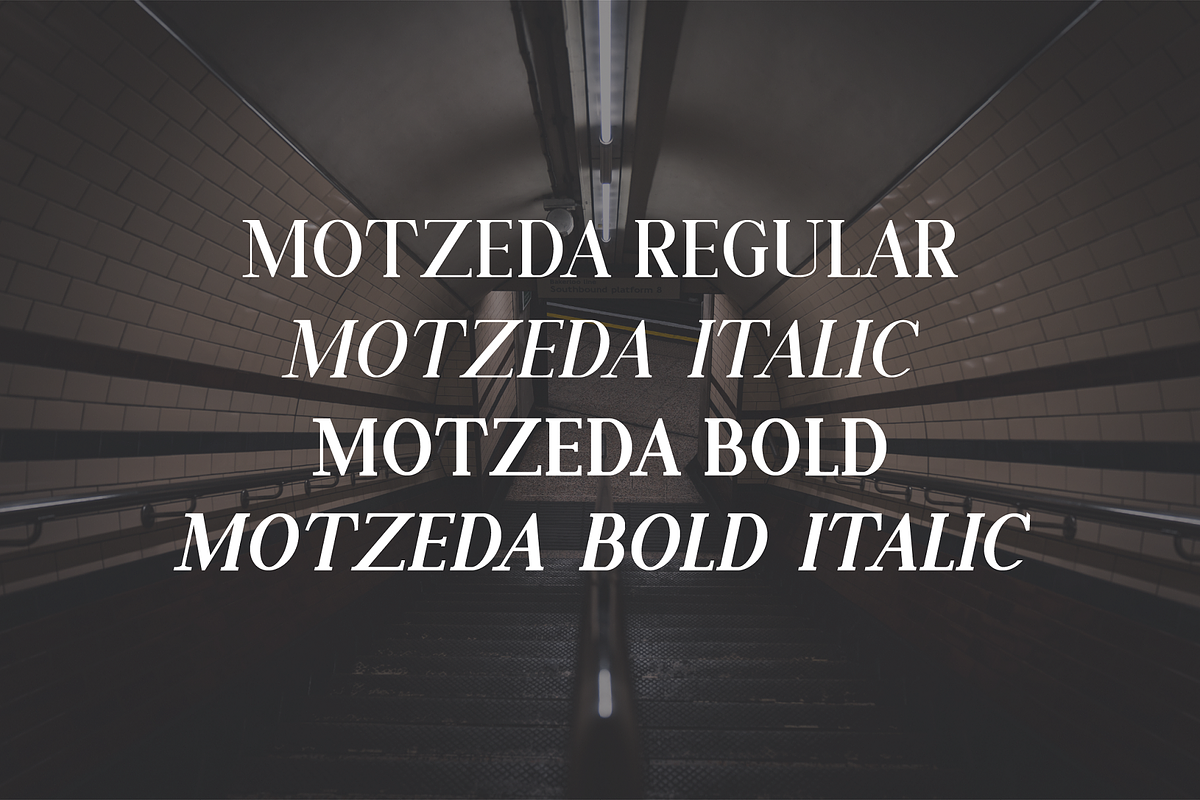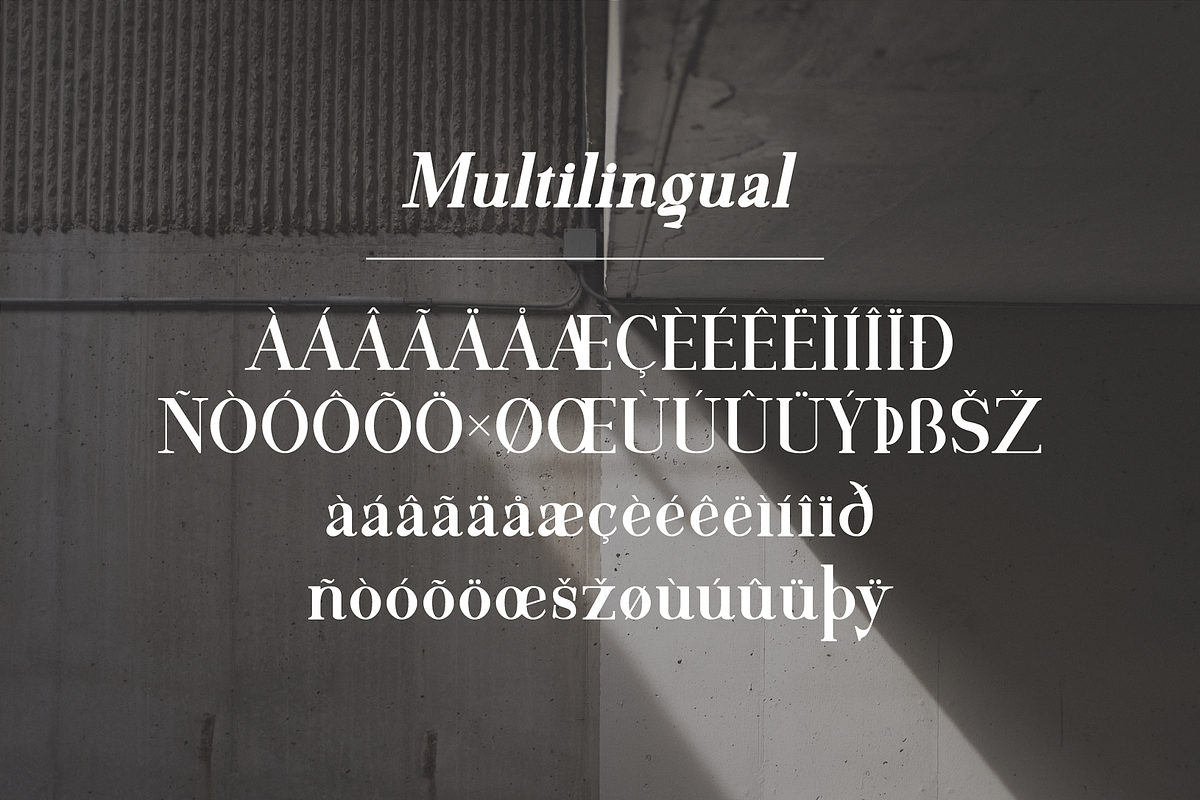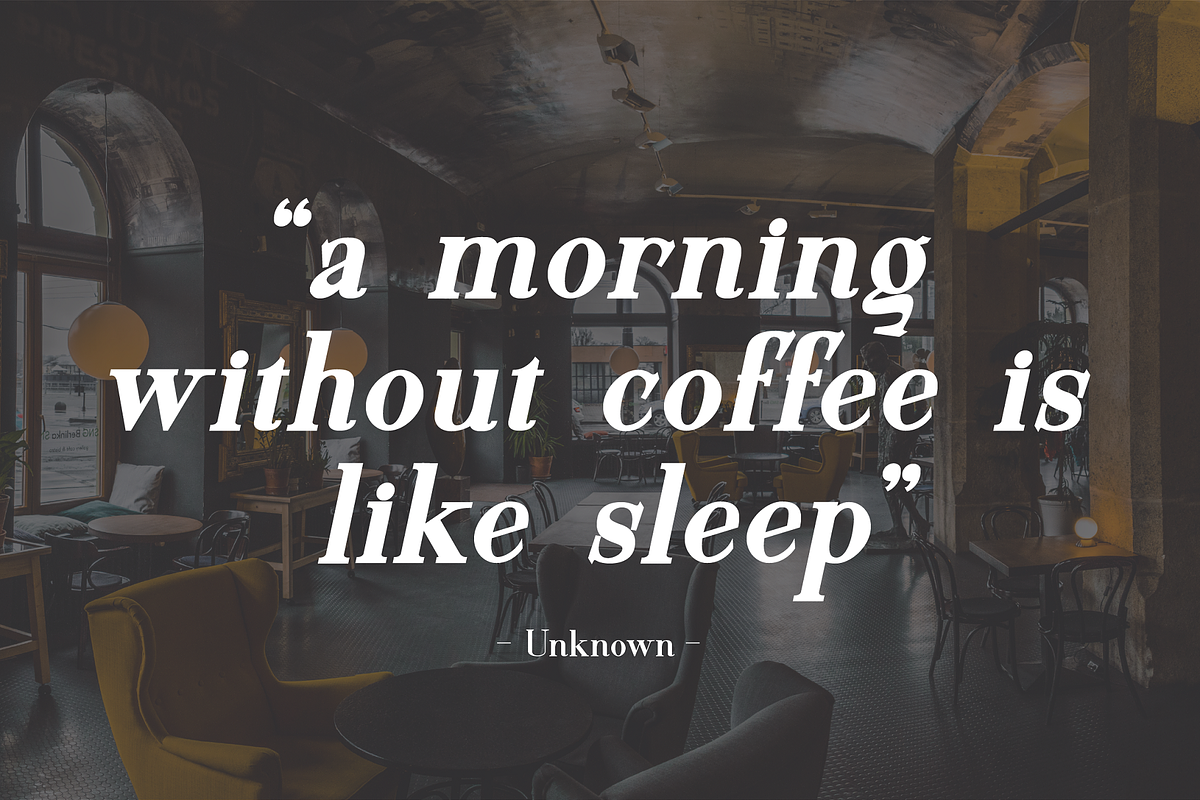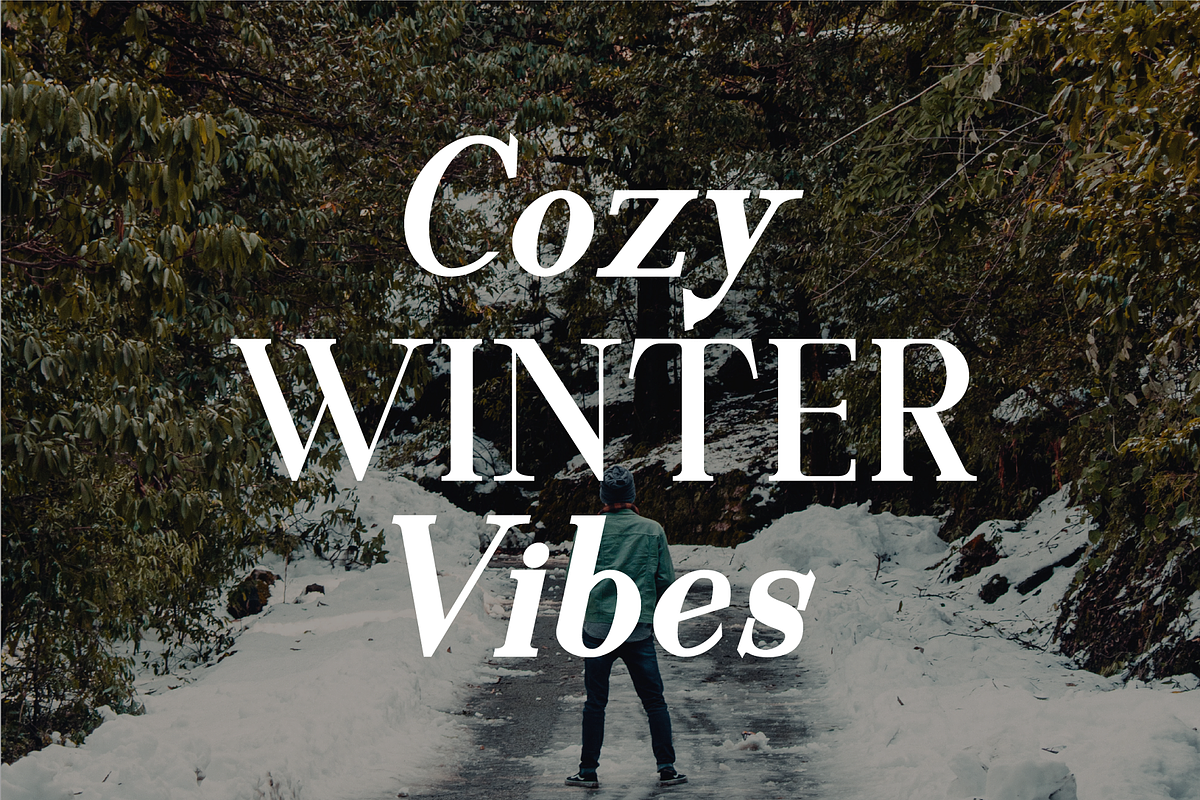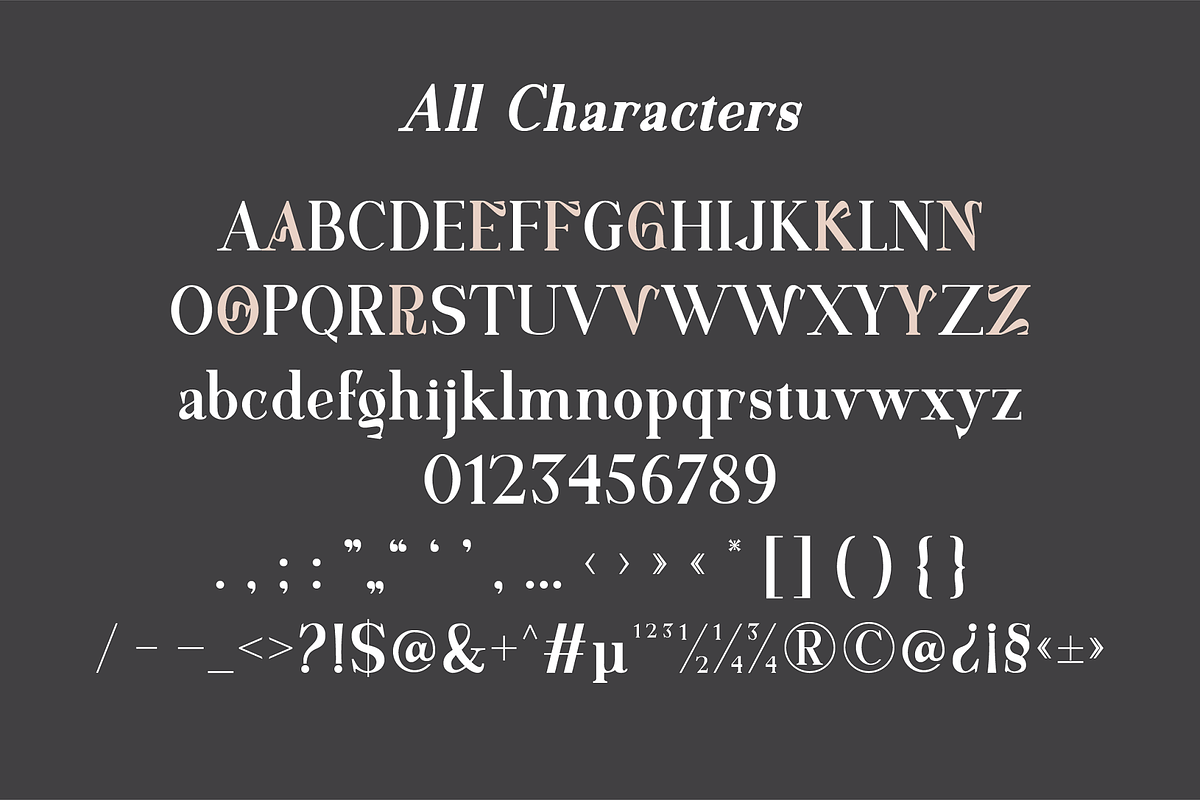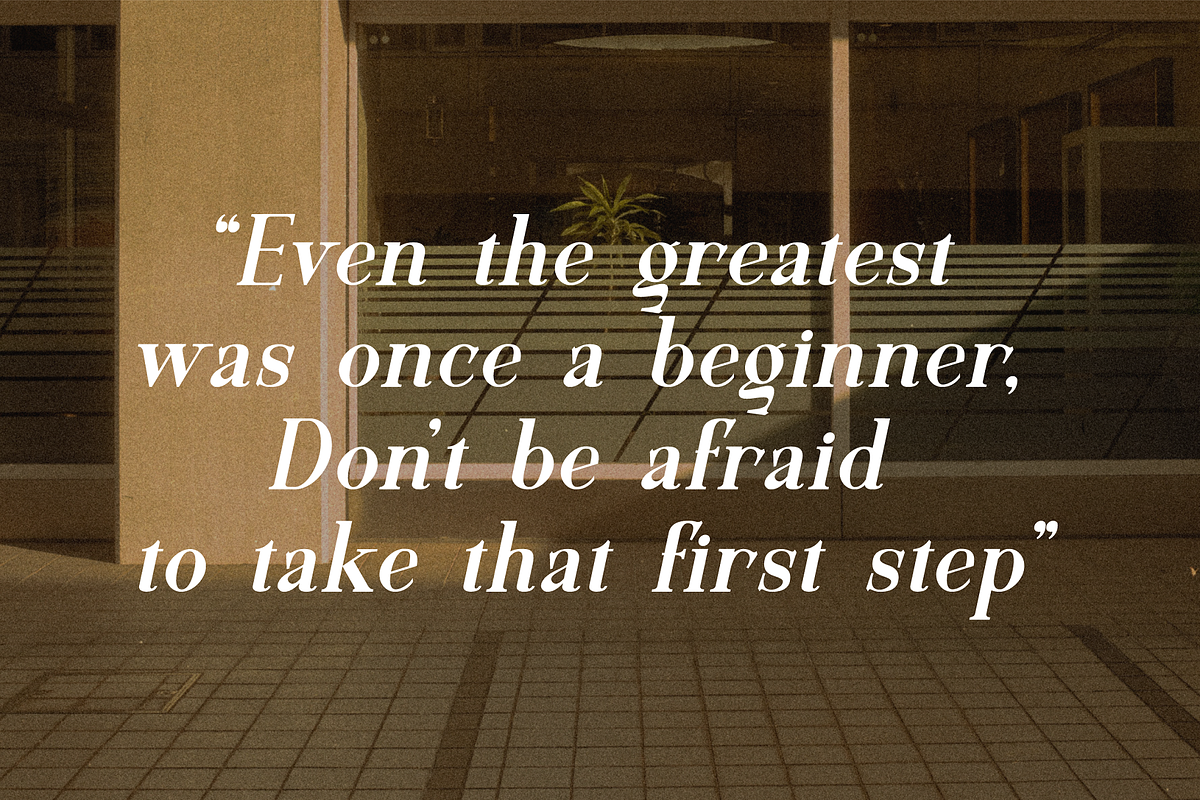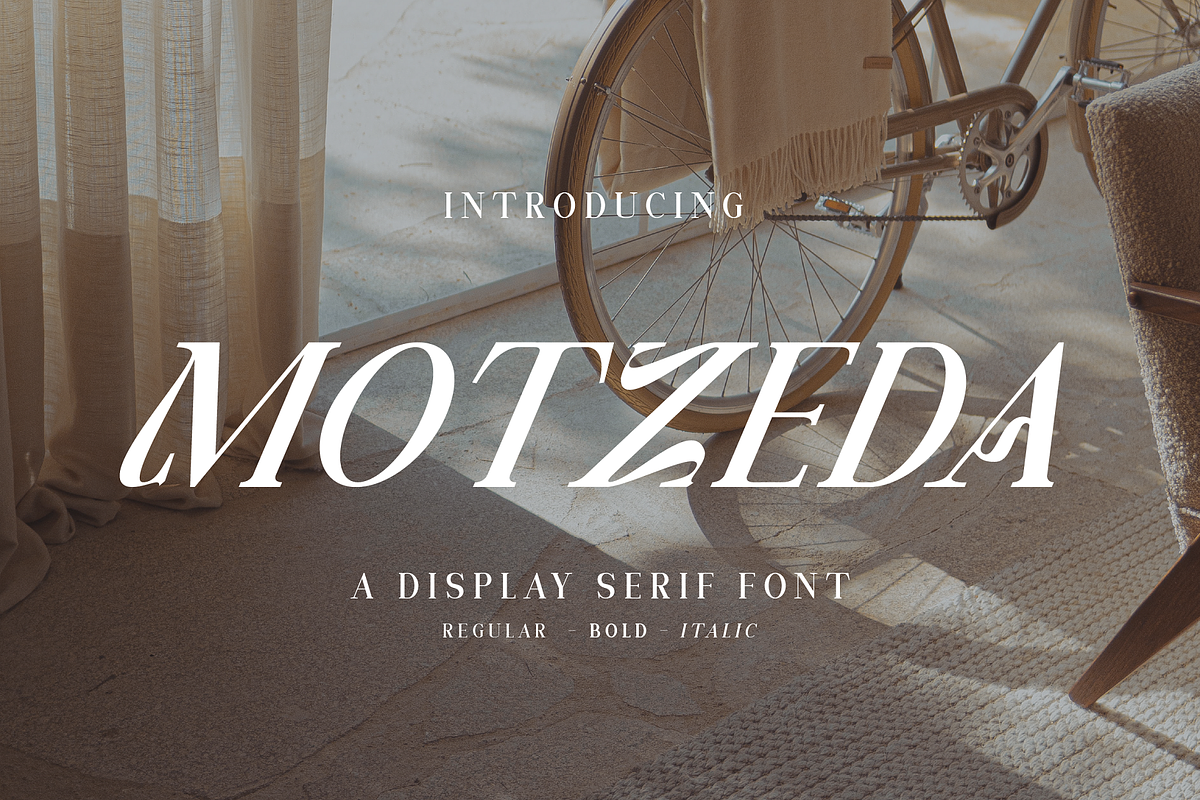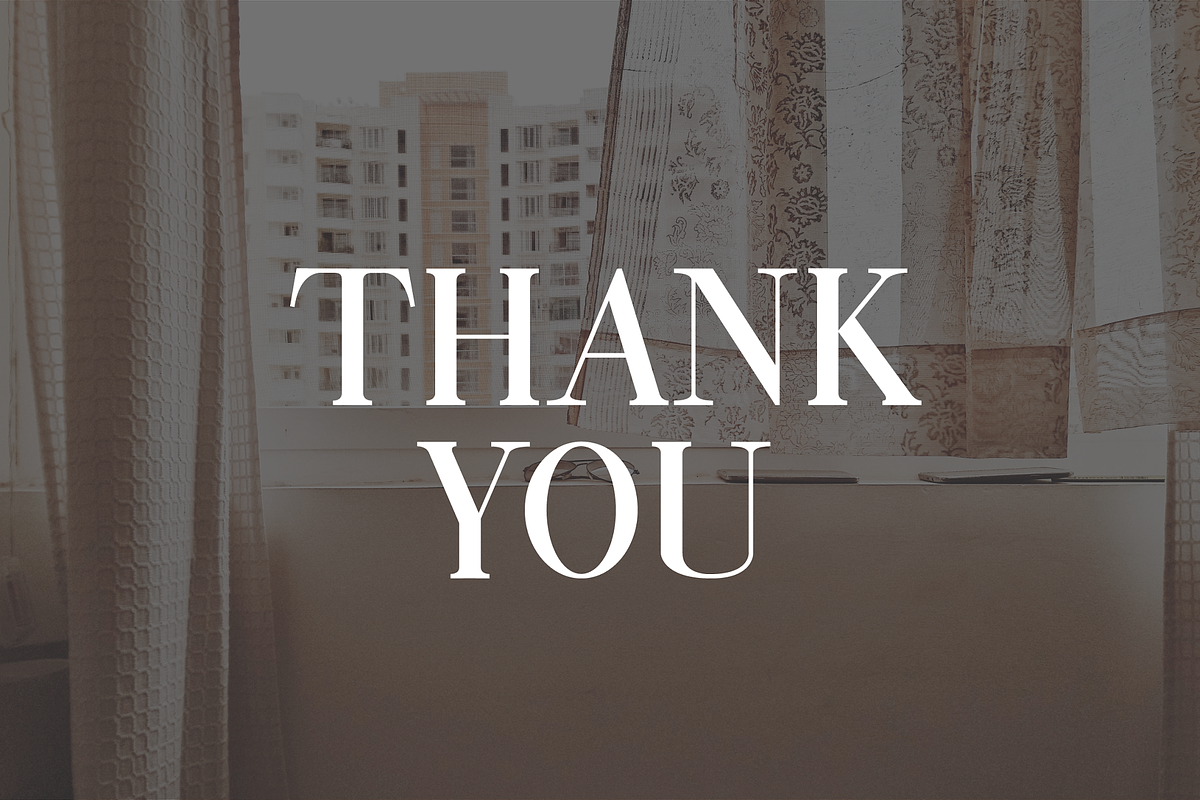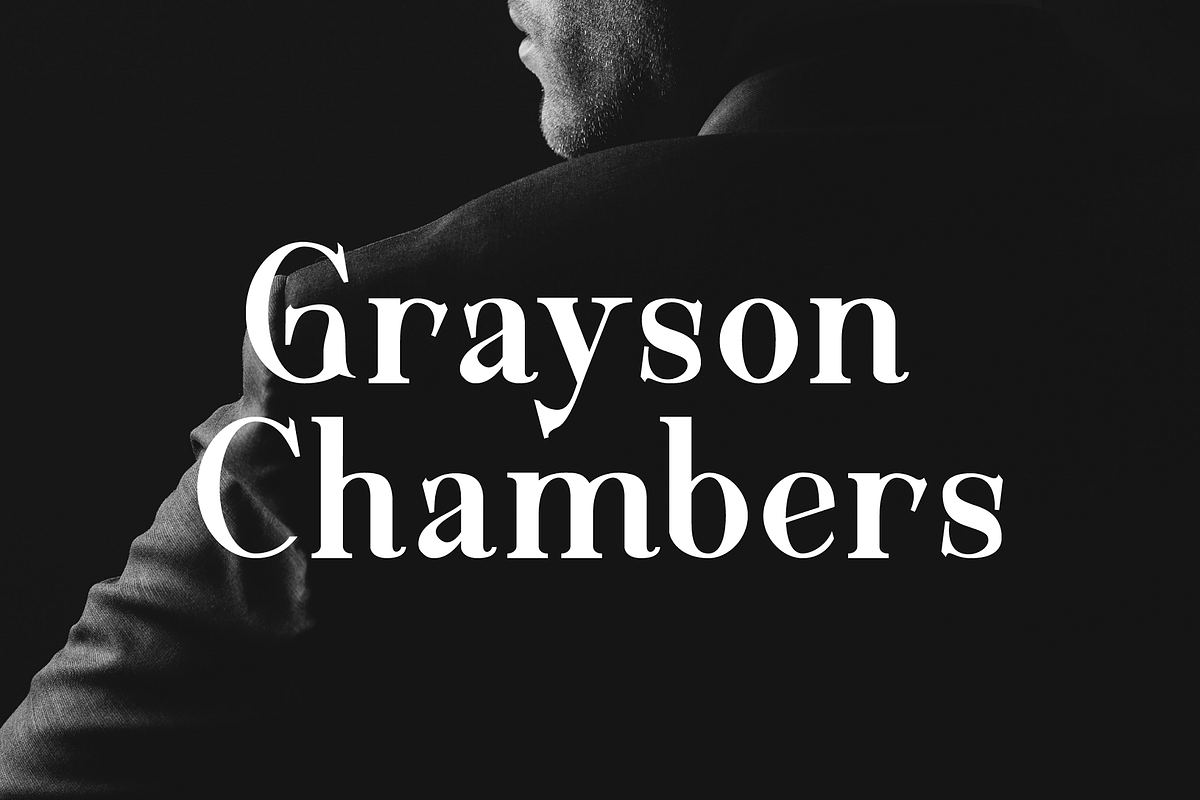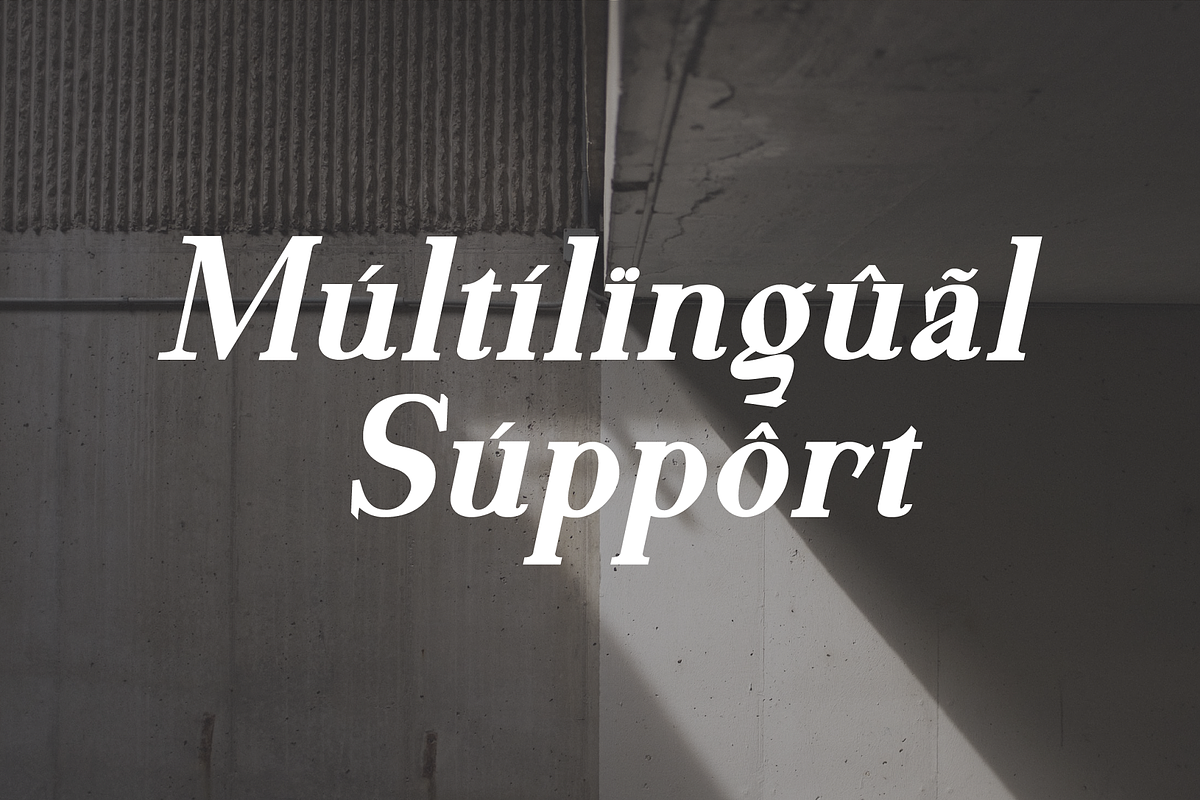
Motzeda - Display Serif
Motzeda display Serif is a cool, thick lettered and assertive display font. Featuring the perfect amount of trendiness, this font will make your designs come to life. Motzeda is PUA encoded which means you can access all of the glyphs.